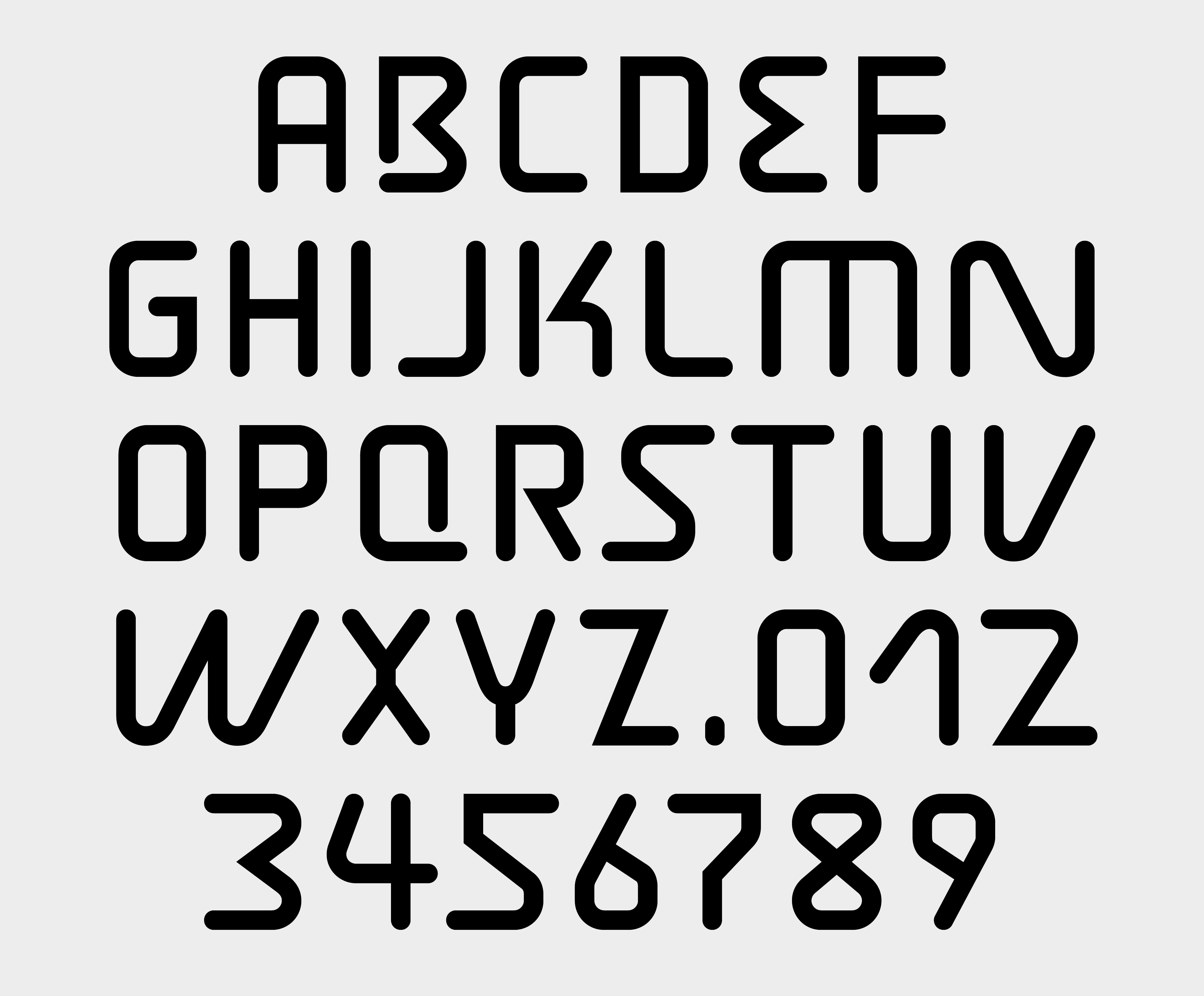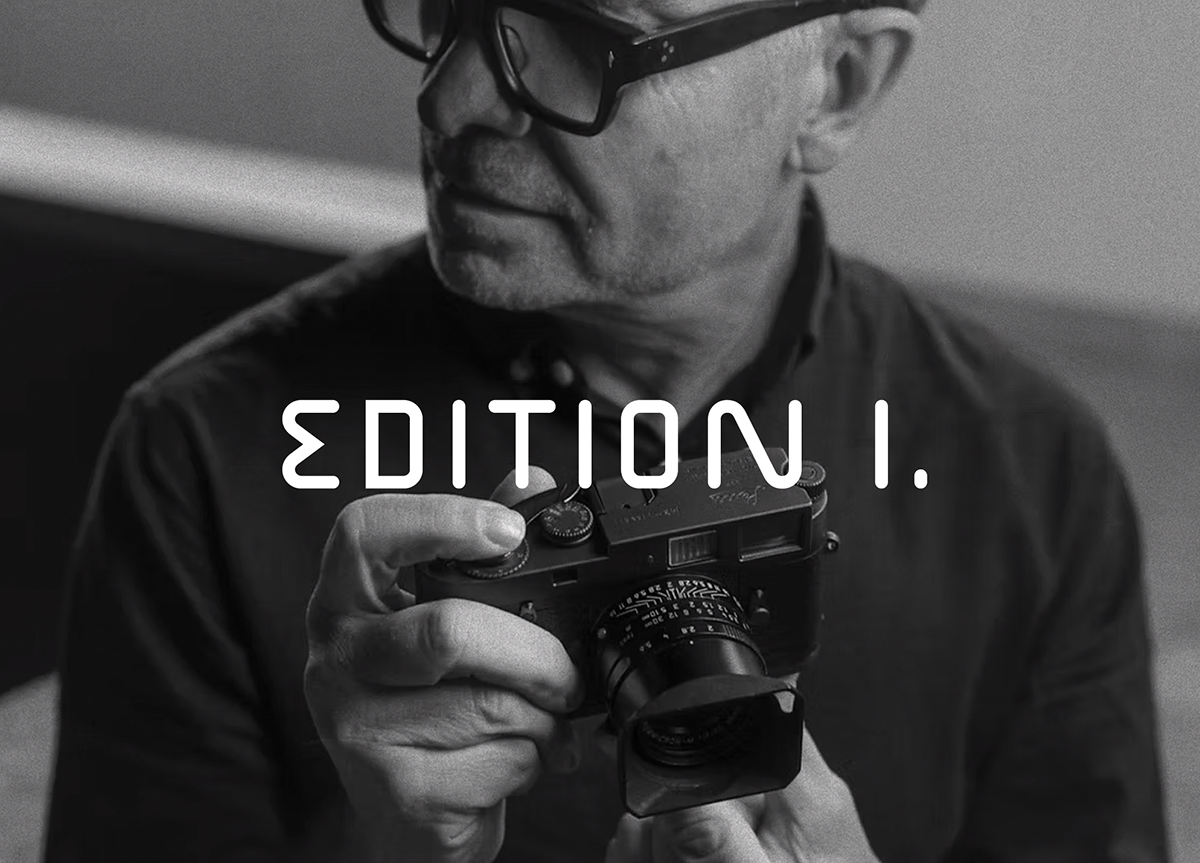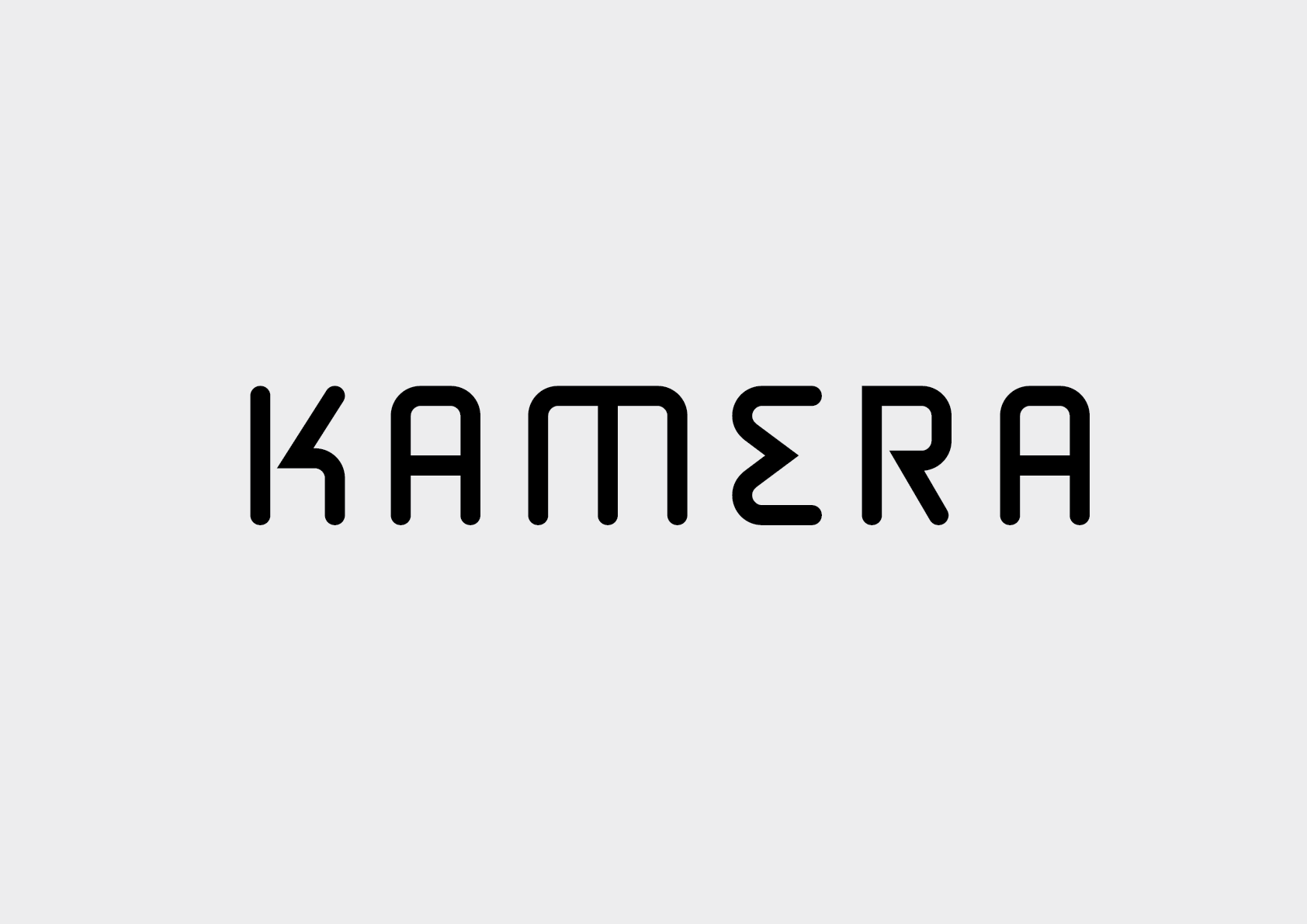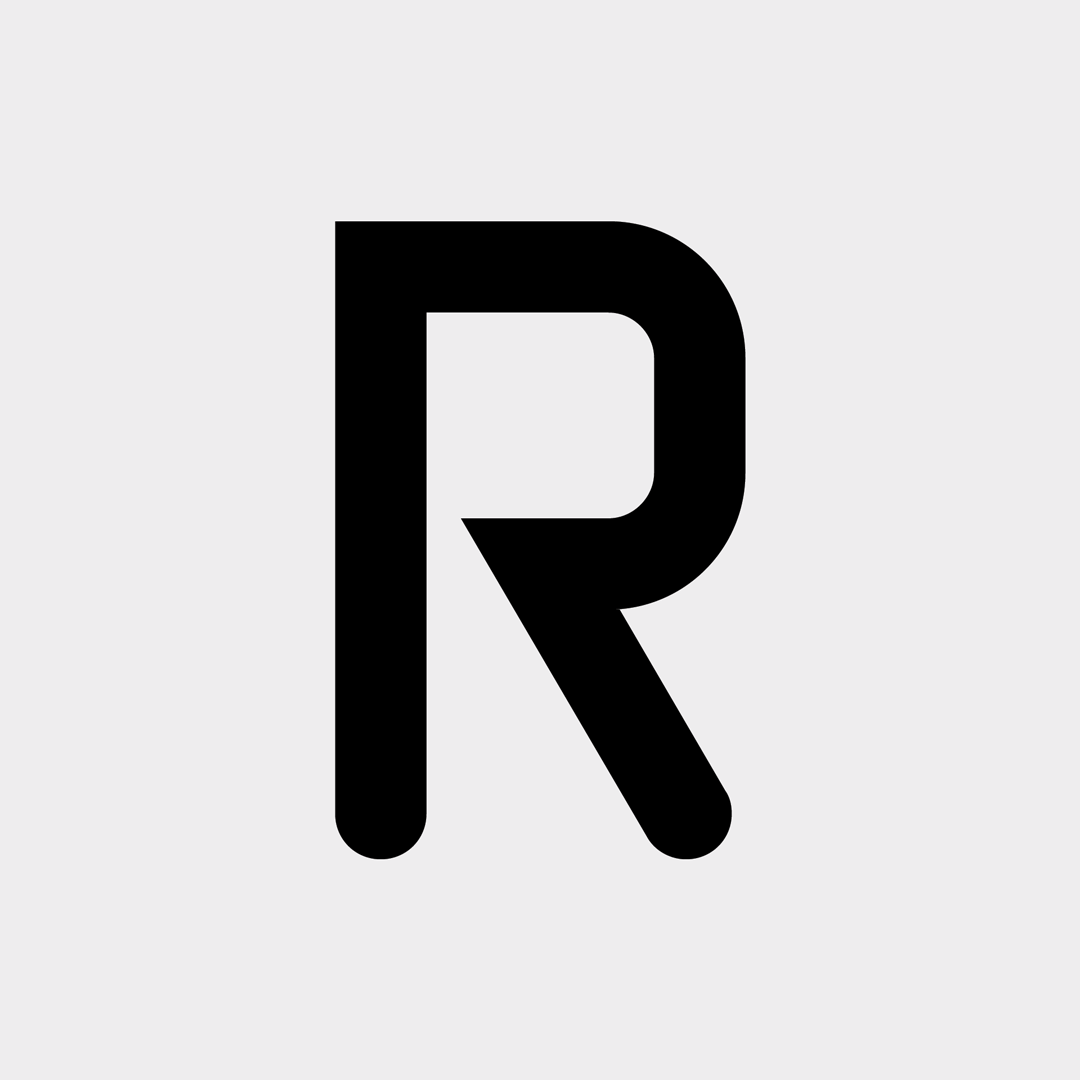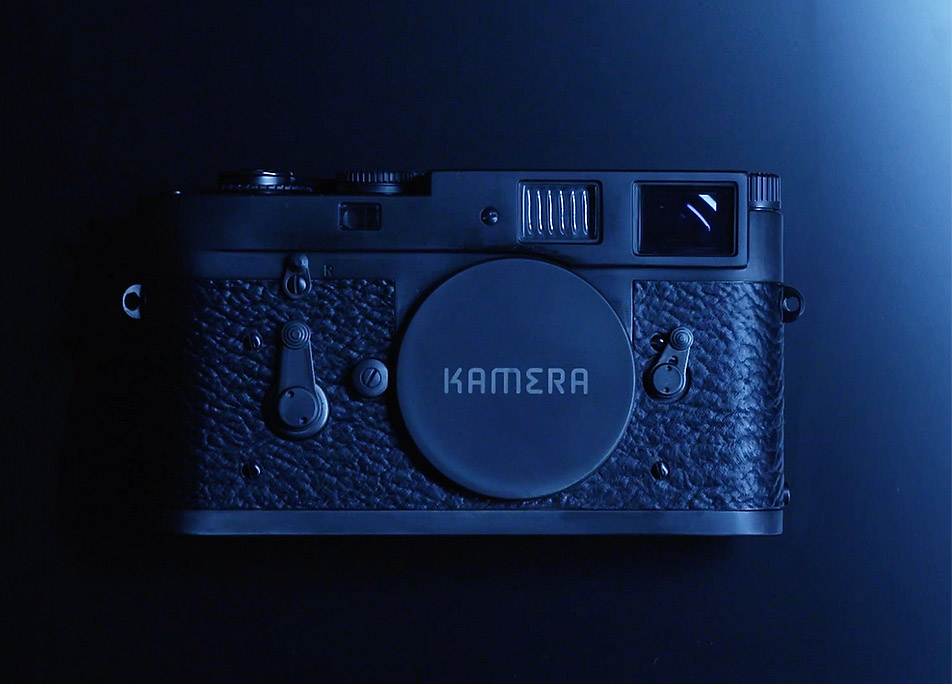
Kamera strives to create a design platform that fuses photographic tools with artistic vision. Our products are dedicated to bringing these ideas to life through exclusive limited editions. These editions allow us to explore materials and techniques that are impossible to use in mass production. Each product is meticulously handcrafted, ensuring perfection in every detail.
A custom typeface specifically designed for fine metal processing, featuring intricate details and exceptional clarity for engravings at small sizes. This typeface combines precision and ensures legibility. It is crafted to enhance the aesthetic appeal of the metallic designs of Kamera products.
Typeface and logo design by Radek Sidun with the cooperation of Tomáš Brousil.
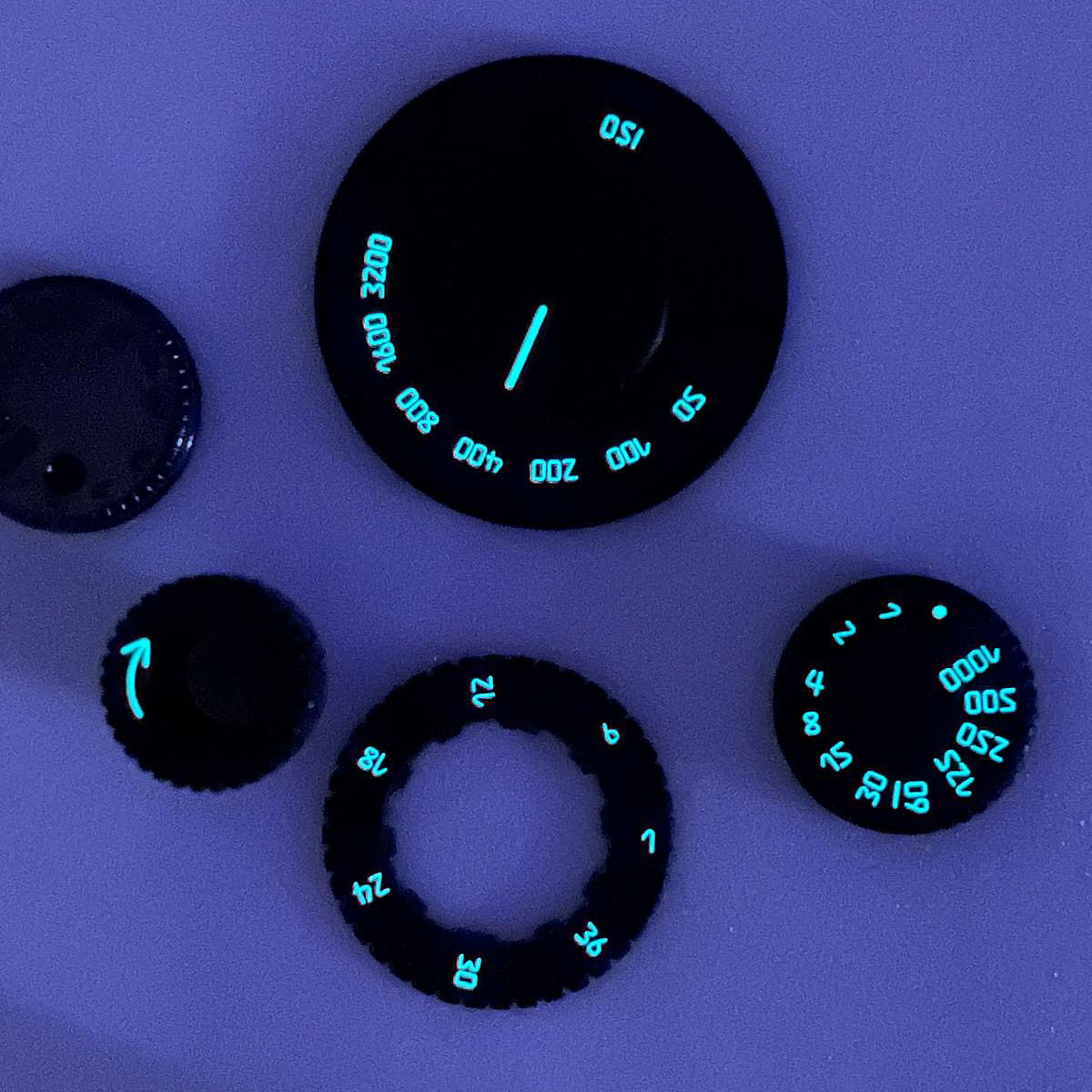
The designed numbers use Super-LumiNova technology.
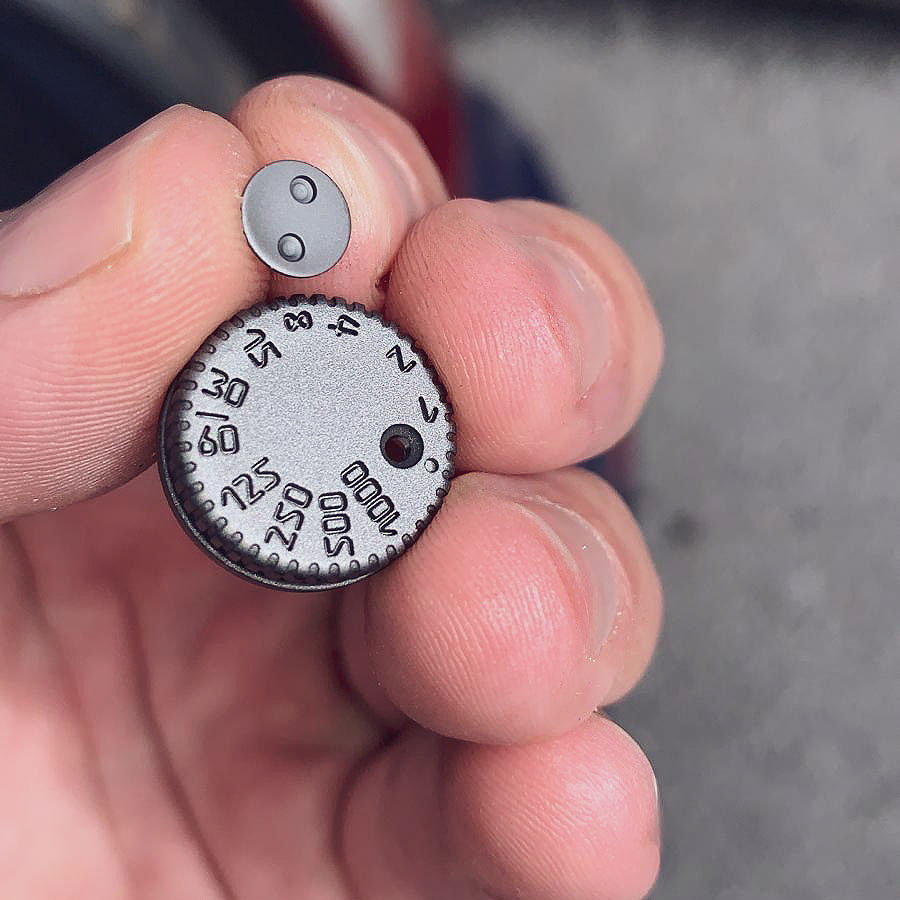
The information displayed on the camera has been updated for the modern era, featuring an ISO range of 50 to 3200 and exposure counts from 1 to 36. The typeface is crafted to enhance the aesthetic appeal of metallic designs, making it ideal for jewellery, nameplates, watches, and other finely engraved products.